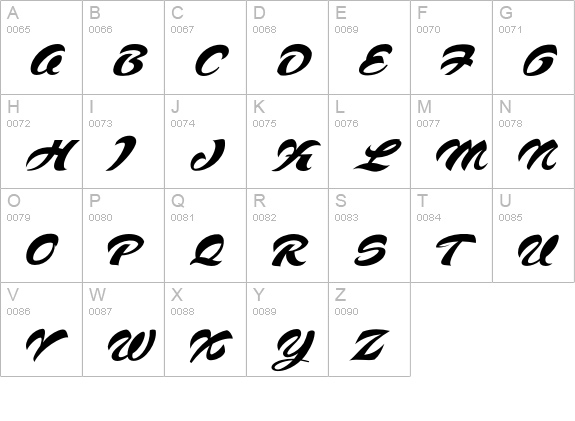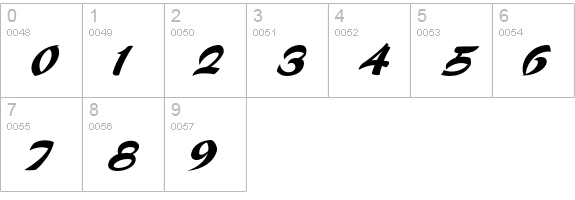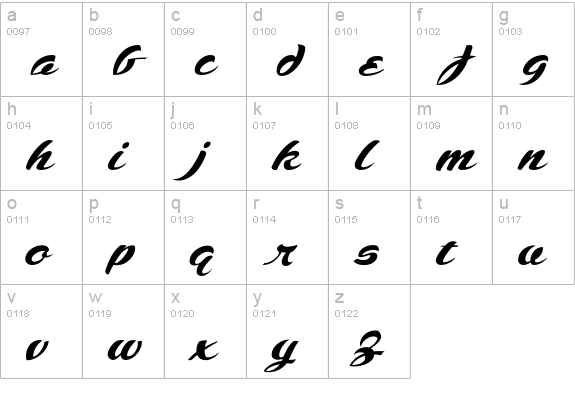
Voodoo Script is a mesmerizing font that will instantly captivate your audience with its enchanting and mystical charm. This unique font is perfect for adding a touch of magic to any project, whether it be a logo, branding, packaging, or even a personal invitation. With its flowing and organic letterforms, Voodoo Script effortlessly combines elegance and playfulness, creating a truly captivating and otherworldly experience. But what makes Voodoo Script even more extraordinary is that it is available for free! Yes, you read that right – this enchanting font is freely available to download at FontsMarket.com. You can now easily access and use this stunning font without any cost, making it the perfect choice for both personal and commercial projects. The versatility of Voodoo Script knows no bounds. Its intricate and beautifully designed characters add a touch of mystery and allure to any design. Whether you want to create an ethereal and magical atmosphere or evoke a sense of nostalgia, Voodoo Script is the perfect font to bring your vision to life. With its wide range of stylistic alternatives and ligatures, Voodoo Script offers endless possibilities for customization. You can effortlessly mix and match different letterforms to create a unique and personalized look that perfectly matches your creative vision. So why wait? Download Voodoo Script for free at FontsMarket.com and let this captivating font add a touch of magic to your next project. Whether you're a designer, a business owner, or someone who simply appreciates the beauty of typography, Voodoo Script is a font that you don't want to miss out on. Get ready to embark on a journey into the mystical world of Voodoo Script and let its spellbinding charm captivate your audience like never before.